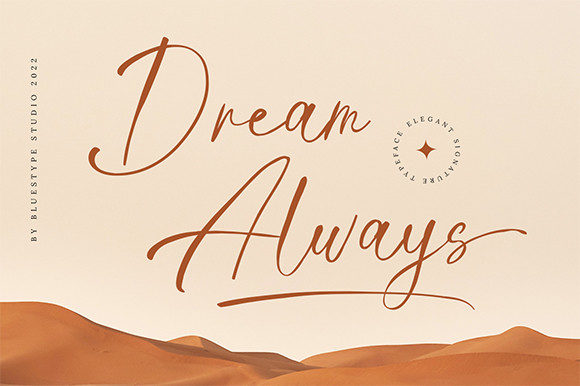
Welcome to the kingdom of exquisite typography, where letters intertwine like whispers of love. Let us introduce you to Dream Always, a script font family that will make your heart dance with joy.
In the realm of love and heartfelt expression, Dream Always reigns supreme. Its relaxed and casual style, akin to a lover's gentle caress, invites you to pen down your deepest emotions with grace and elegance. Imagine your love letters, cards, or wedding invitations adorned with Dream Always's enchanting strokes, conveying your affection with unparalleled beauty.
Step into a world where words take on a life of their own, where every curve and flourish of Dream Always carries a hidden tale of romance. With this font, your designs will exude an air of sophistication that will leave your audience spellbound. Whether you're a seasoned designer or a creative enthusiast, Dream Always is the key to unlocking your design dreams.
Bluestype Studio, the creative minds behind Dream Always, have woven their magic into every letterform, ensuring that this font is a true masterpiece. The PUA encoding empowers you to effortlessly access a treasure trove of glyphs and swashes, allowing you to unleash your creativity without bounds.
Dive into the depths of Dream Always and discover a font that ignites your passion for design. Its versatility extends beyond love quotes; it is a perfect companion for branding, social media posts, invitations, posters, T-shirts, and countless other projects. Let your imagination soar and watch as Dream Always transforms your ideas into visual poetry.
With Dream Always, you'll effortlessly elevate your designs, captivating your audience with its charm and elegance. Each stroke, each curve, each letterform is a symphony of love, an ode to the beauty that surrounds us. Let Dream Always be your muse, your guiding light in the world of design.